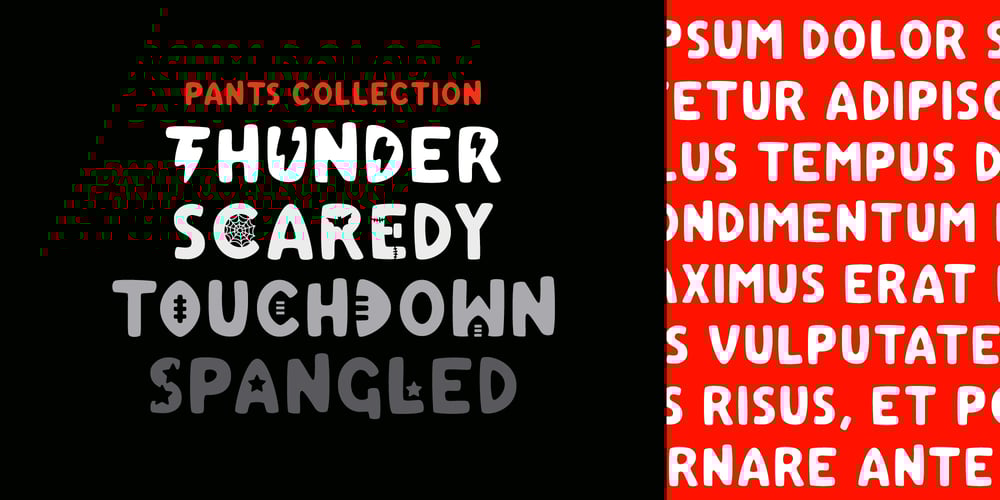
Pants Collection
Pants Collection font
Pants Collection Font Family was designed by Thomas Ramey and published by Thomas Ramey Design. Pants Collection contains 4 styles and family package options. Inspired by old comics and superheroes, The Pants Collection is a very versatile comic style font family. The lowercase provides a solid base of letterforms and characters while the uppercase incorporates personality. It was designed to be interchangeable, mixing and matching between the cases to bring a sense of surprise and delight to designs. Each letterform was uniquely crafted so whether it is a massive blow to the face or a small subtle caption in the corner of the page, it will look great!As the popularity of the original font grew, I couldn’t just stop with Thunder Pants so I created several other fonts including Spangled Pants, Touchdown Pants, and even a Scaredy Pants. All have the same base lowercase font, yet infuse different elements in the uppercase letterforms to add different personalities. Keeping the playful tone and friendly forms, each font presents new letters and characters to give your designs the right flavor. Each font is also jammed pack with goodies, illustrations, as well as a wide range of characters to provide use in many languages.